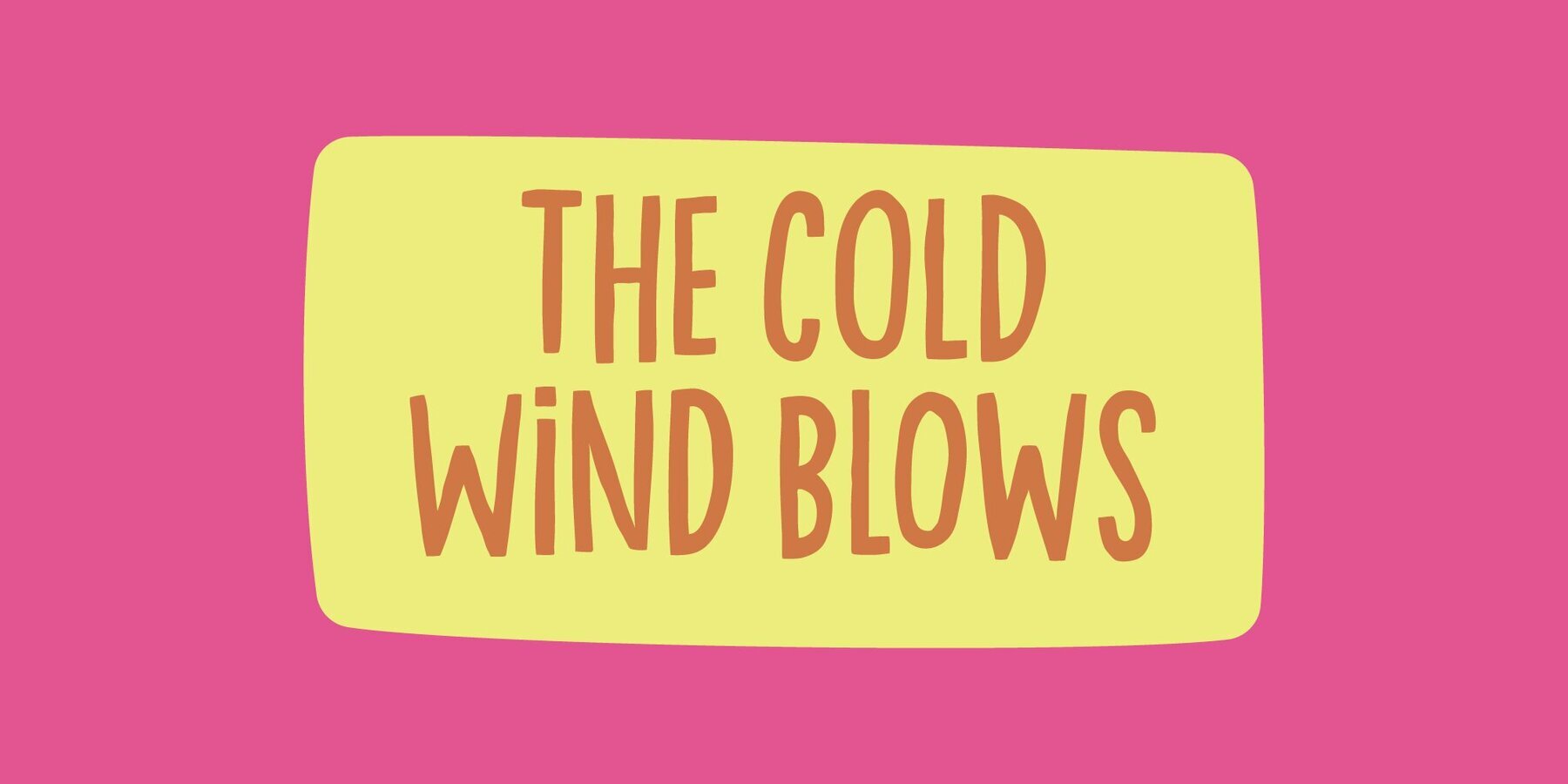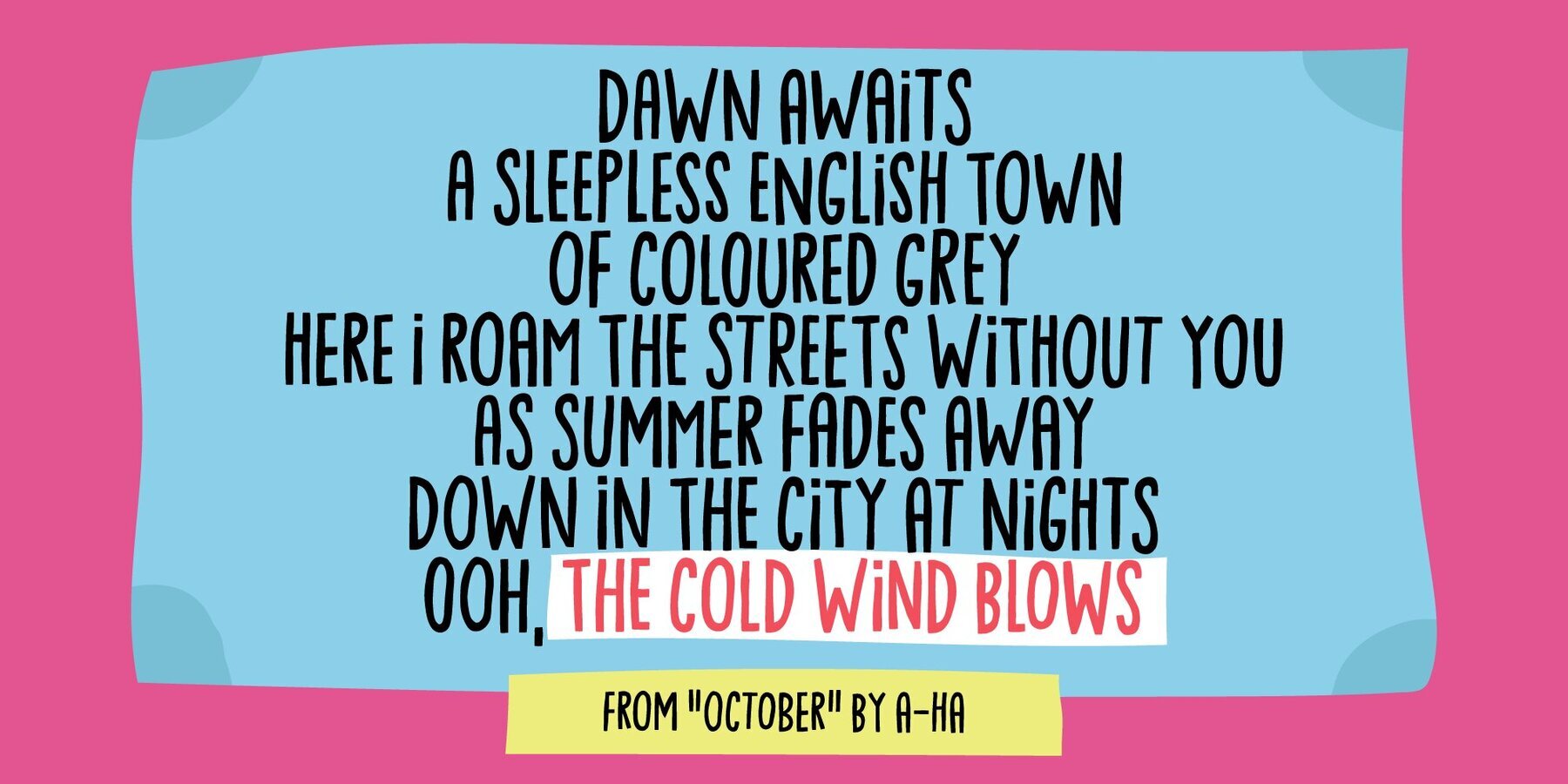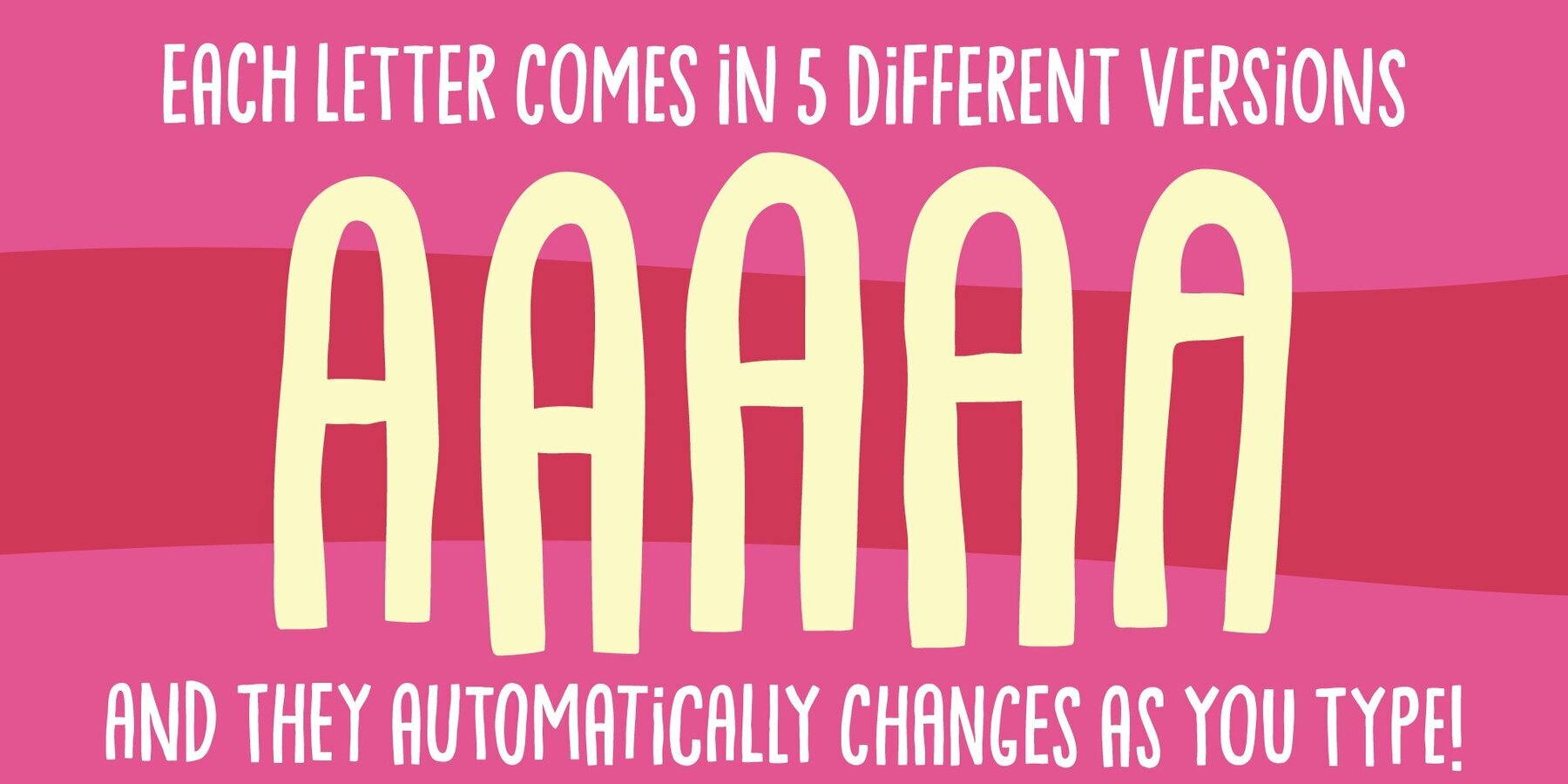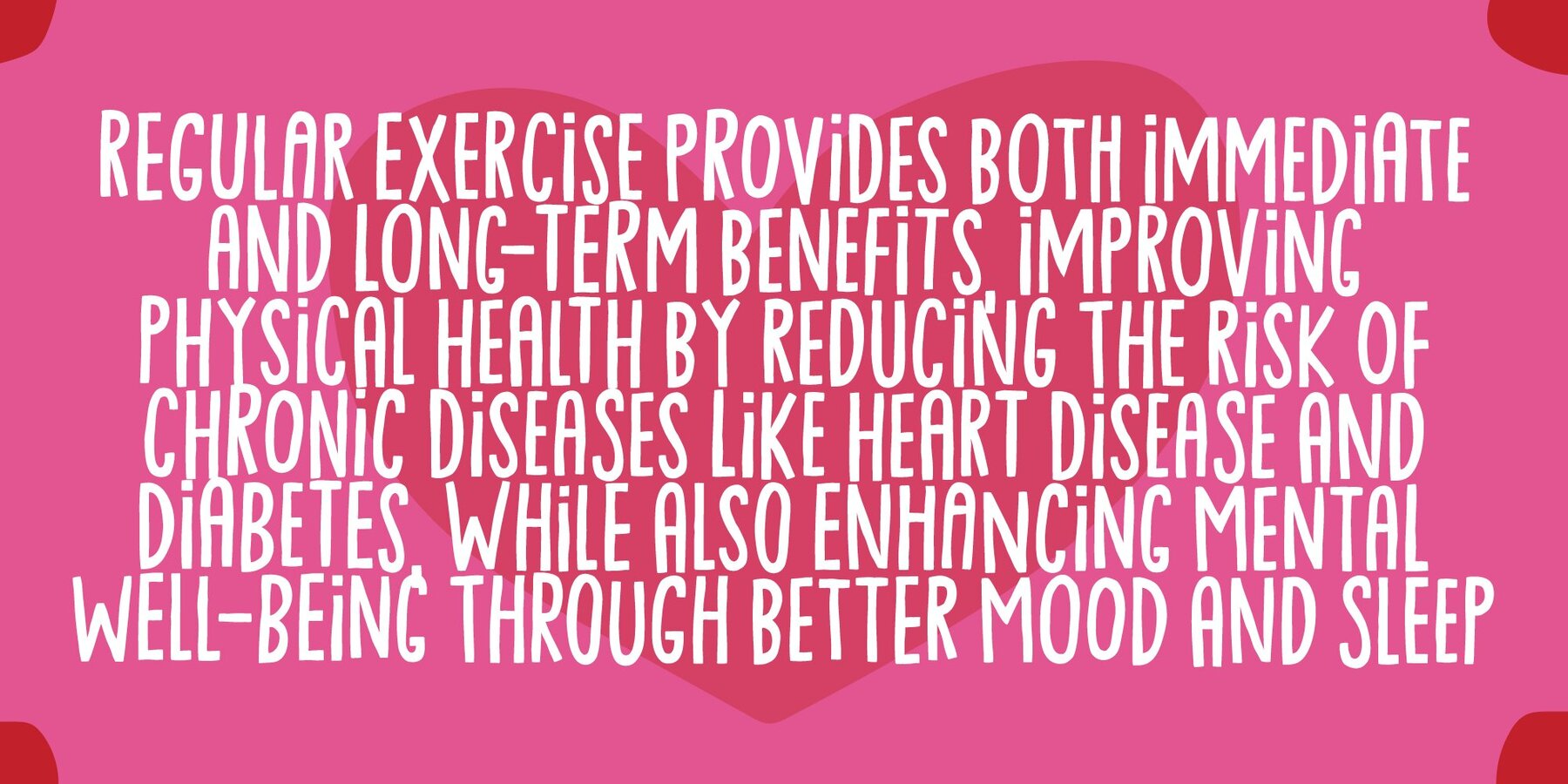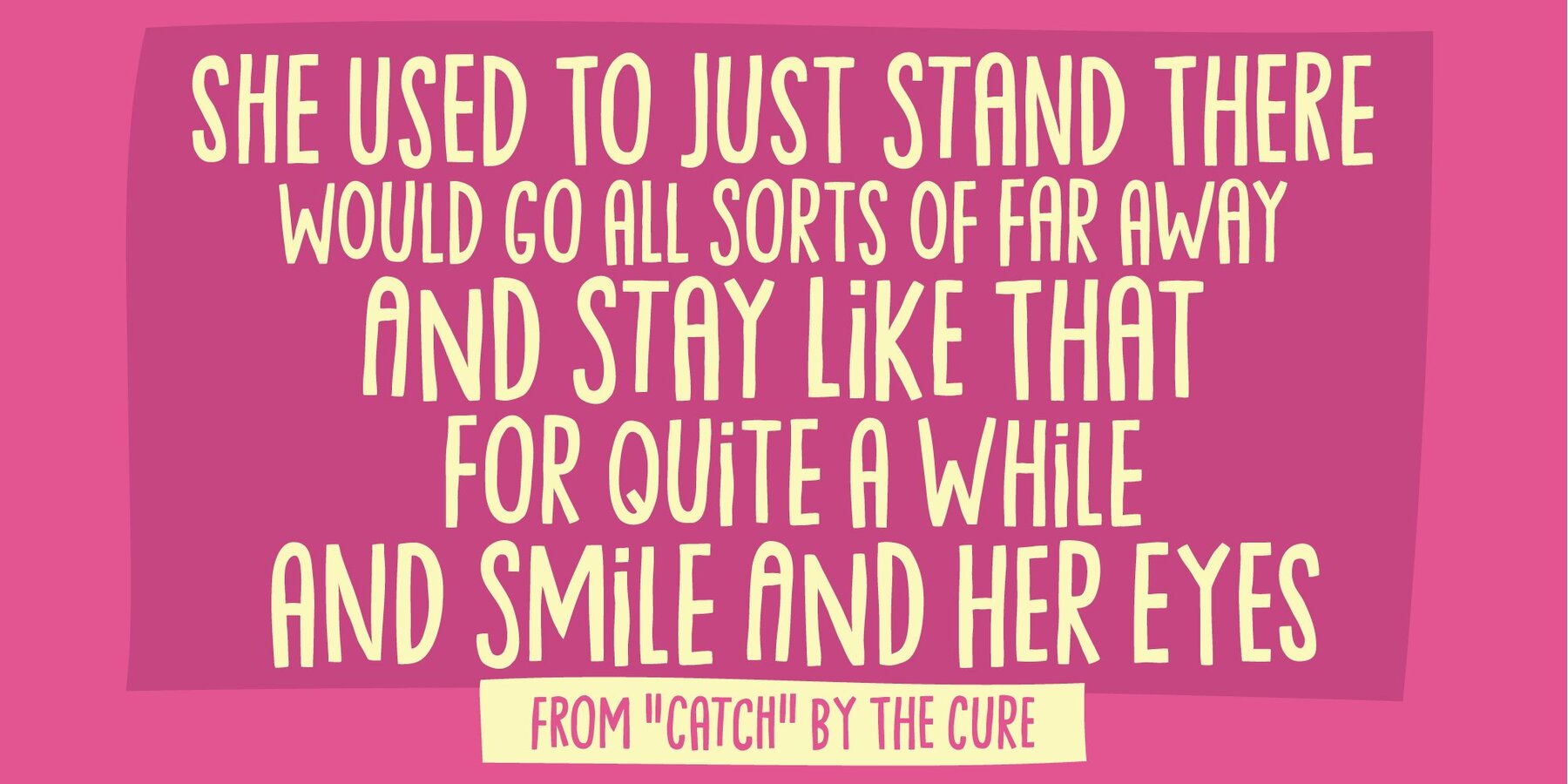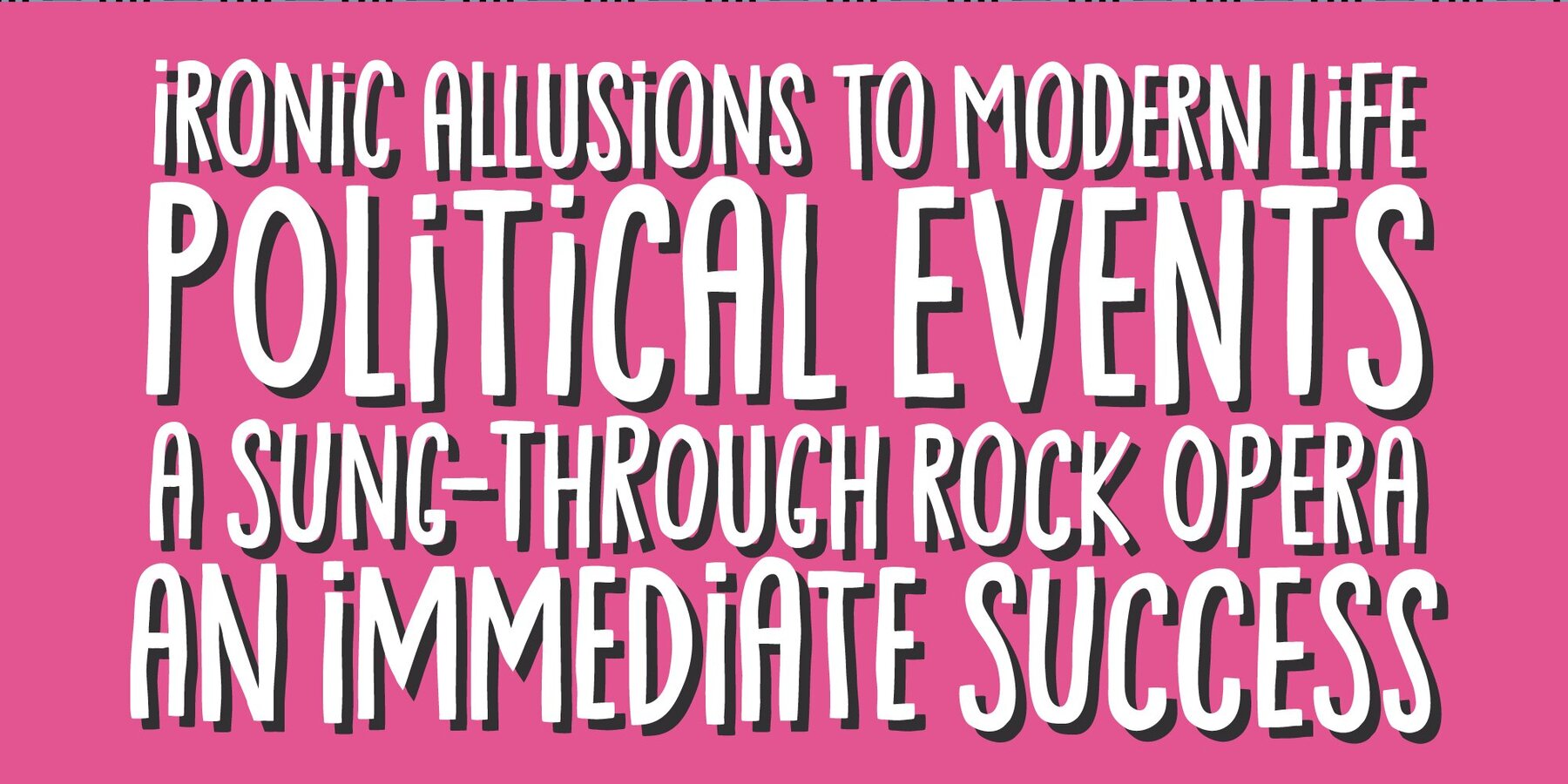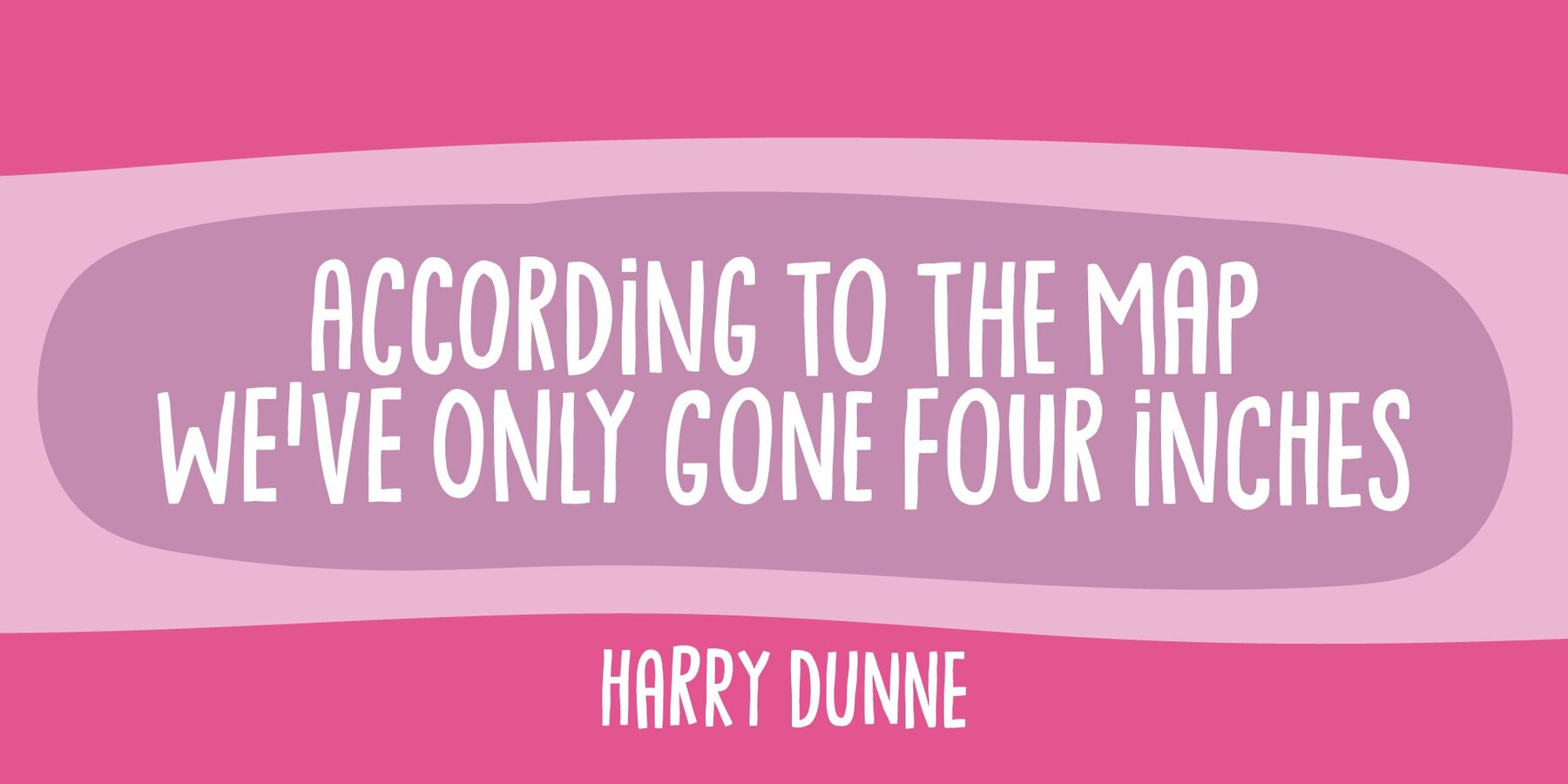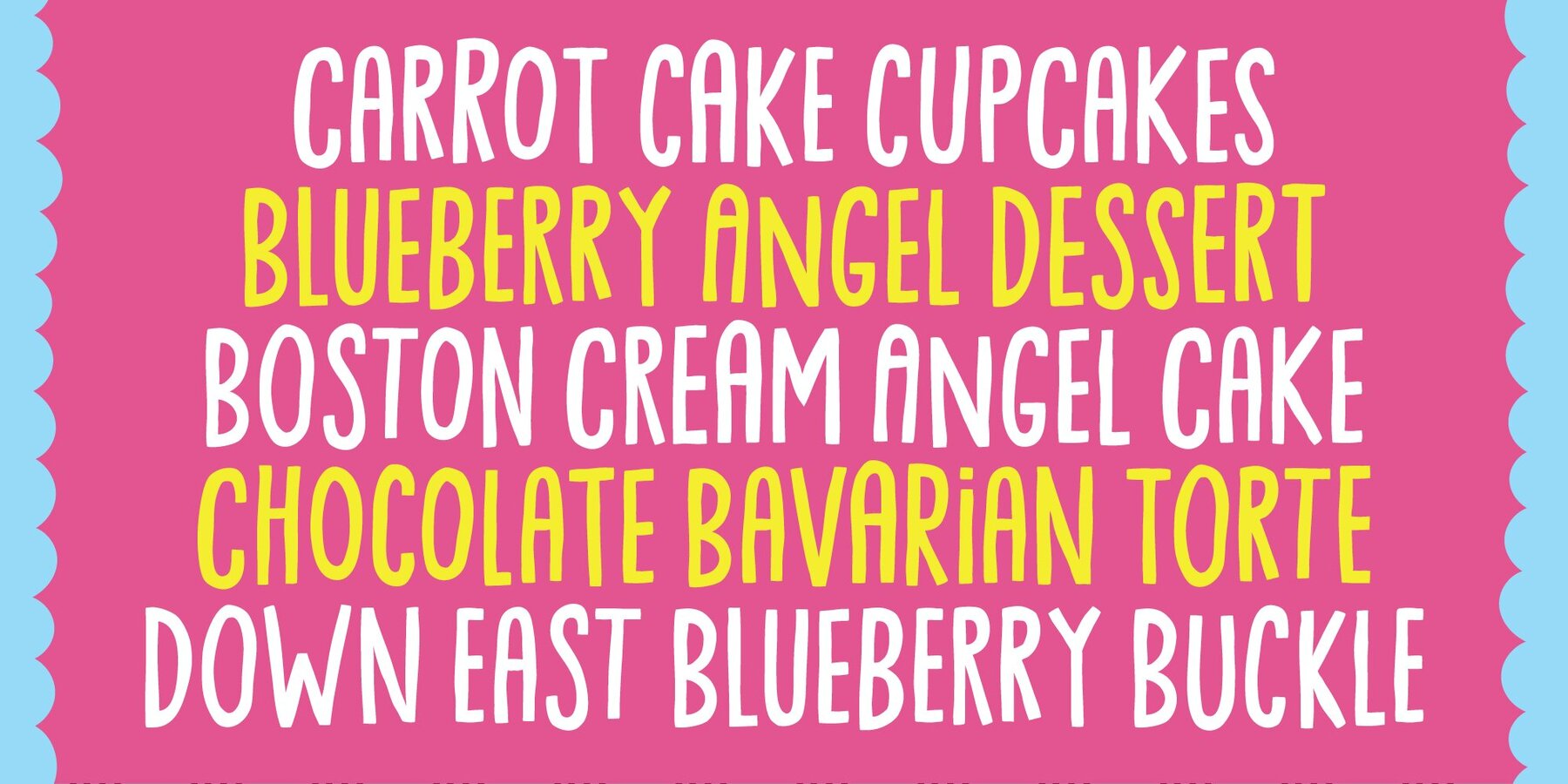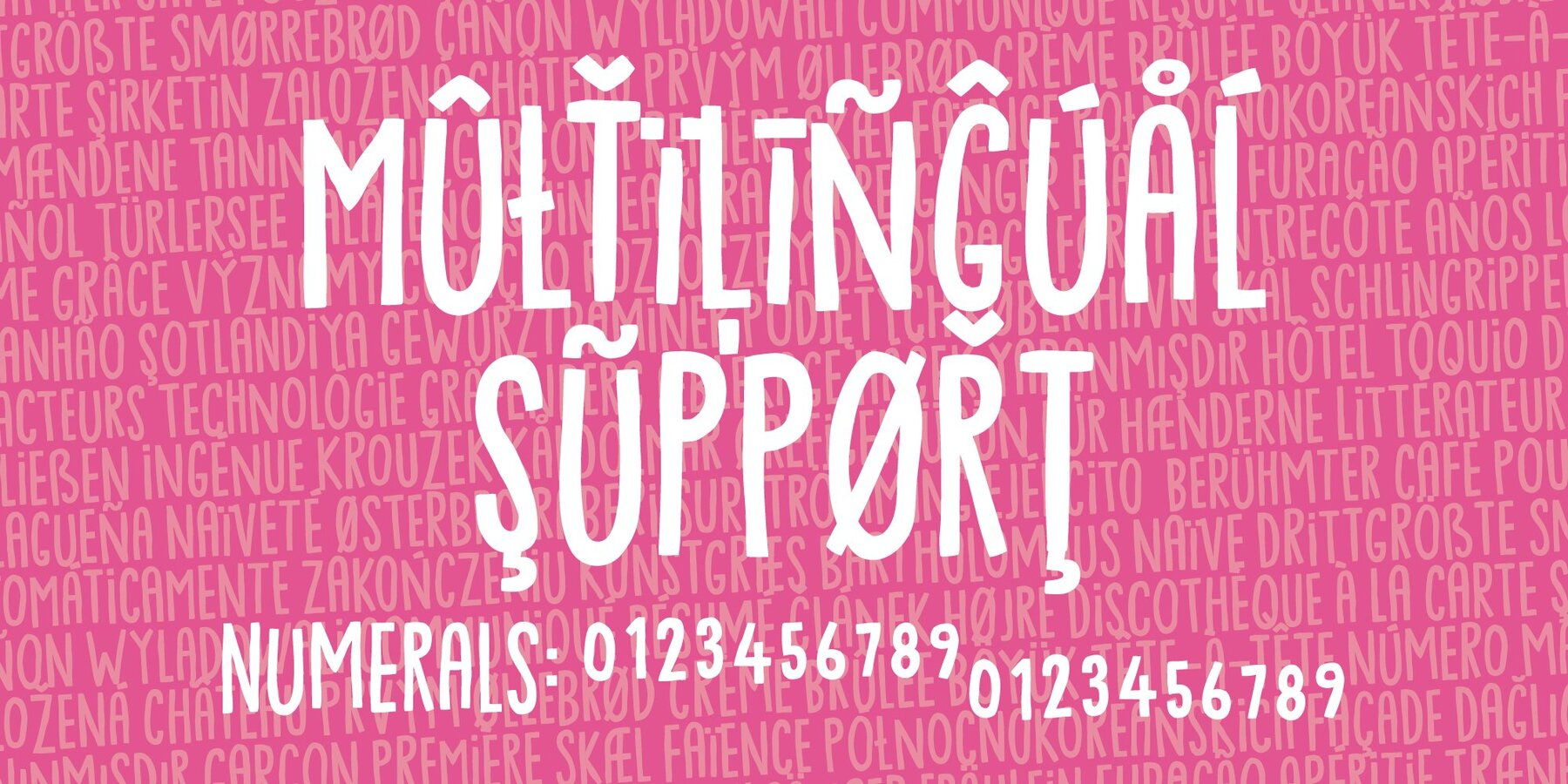
The cold wind blows Font
Inspired by the atmosphere of autumn in Copenhagen, this font carries the character of its season. The cold wind blows was created during October and takes its name from a song by Norwegian band A-ha, echoing the crisp and organic vibe of its origins.The cold wind blows – Handmade Display Font
Each letter is handmade, then refined digitally while preserving its authentic, hand-drawn feel. The result is a font that delivers both a raw, expressive look and clean readability, ideal for projects that need a touch of individuality.Features